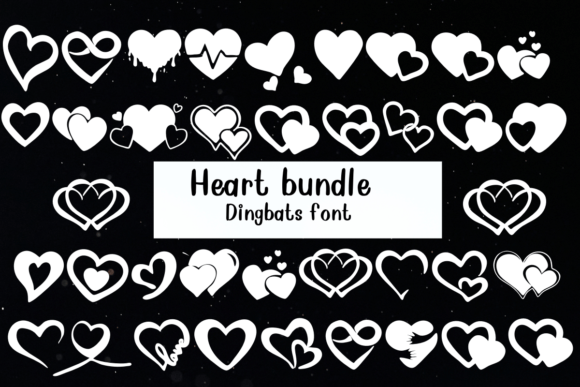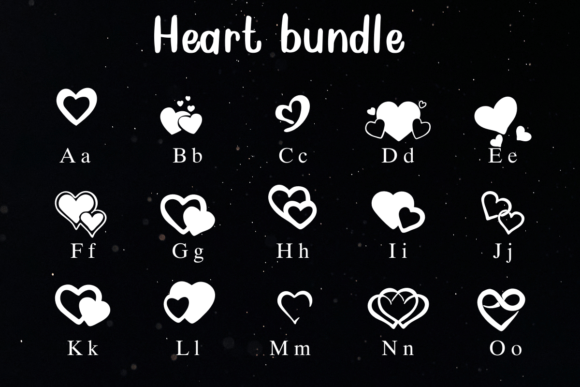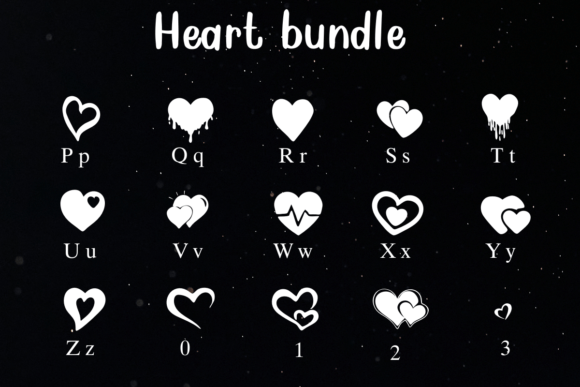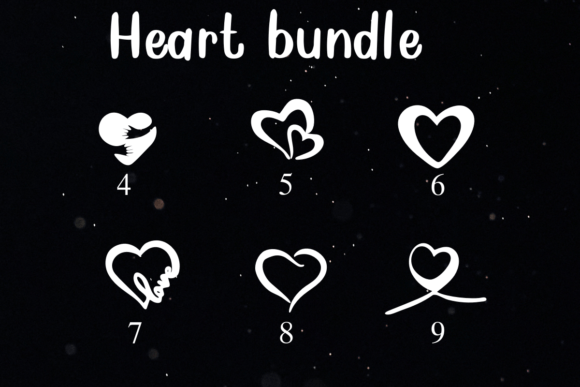
Hearts Bundle Font
About the Hearts Bundle Font
Let us introduce you to Hearts Bundle Font, where timeless design meets modern craftsmanship. Hearts Bundle is a special font full of hearts. Instead of regular letters and numbers, it has cute heart shapes! It’s perfect for adding love and charm to your projects like cards, posters, or invitations.
Hearts Bundle’s playful, friendly personality makes it ideal for projects emphasizing love, romance, or a youthful spirit. It excels in short, impactful headlines, branding elements for businesses targeting a young demographic (e.g., confectionery, children’s products), and decorative elements on invitations or packaging. Avoid using it for body text or UI; its unique character is better suited for accentuating specific design elements rather than conveying large amounts of information.
Pairing Hearts Bundle with a clean sans-serif font like Open Sans for body copy creates a balanced contrast. For a more sophisticated feel, consider pairing it with a delicate script font like Great Vibes for titles or a modern geometric sans-serif like Montserrat for supporting text. This ensures readability while maintaining the charming, expressive quality of Hearts Bundle.
Hearts Bundle Font Usage Examples
Hearts Bundle Font Example